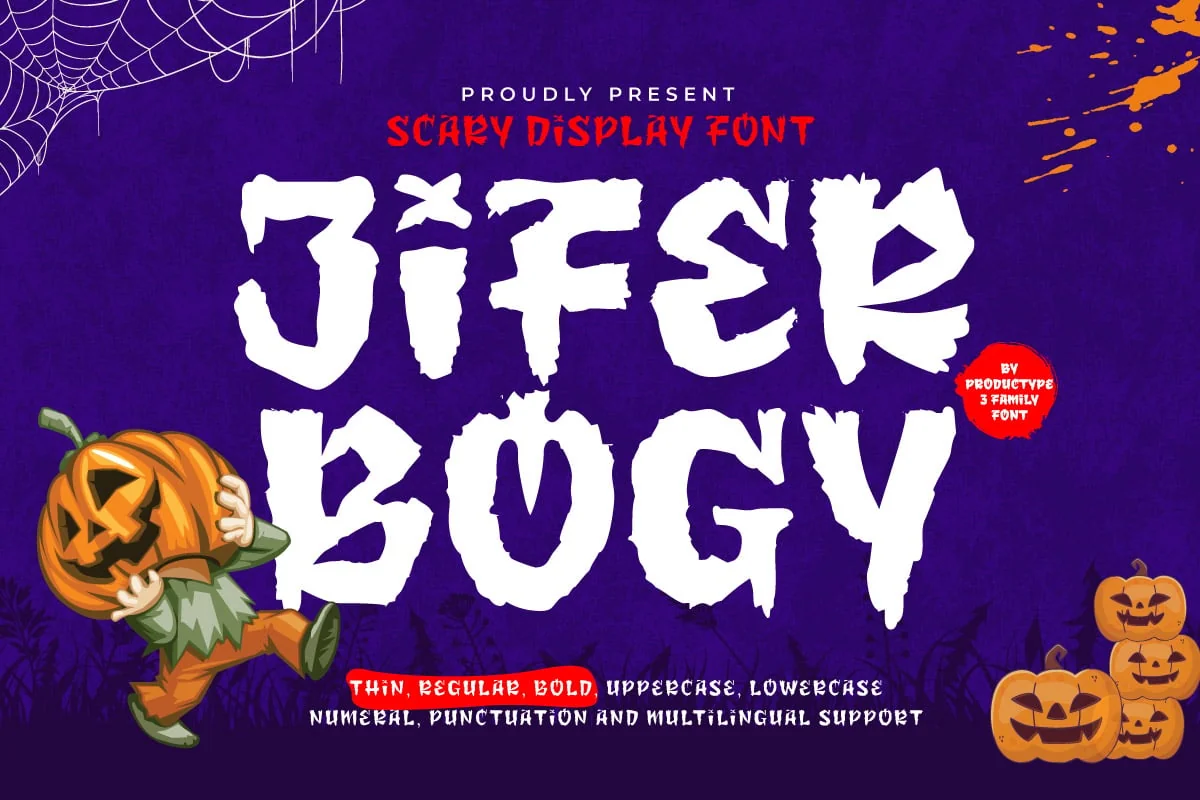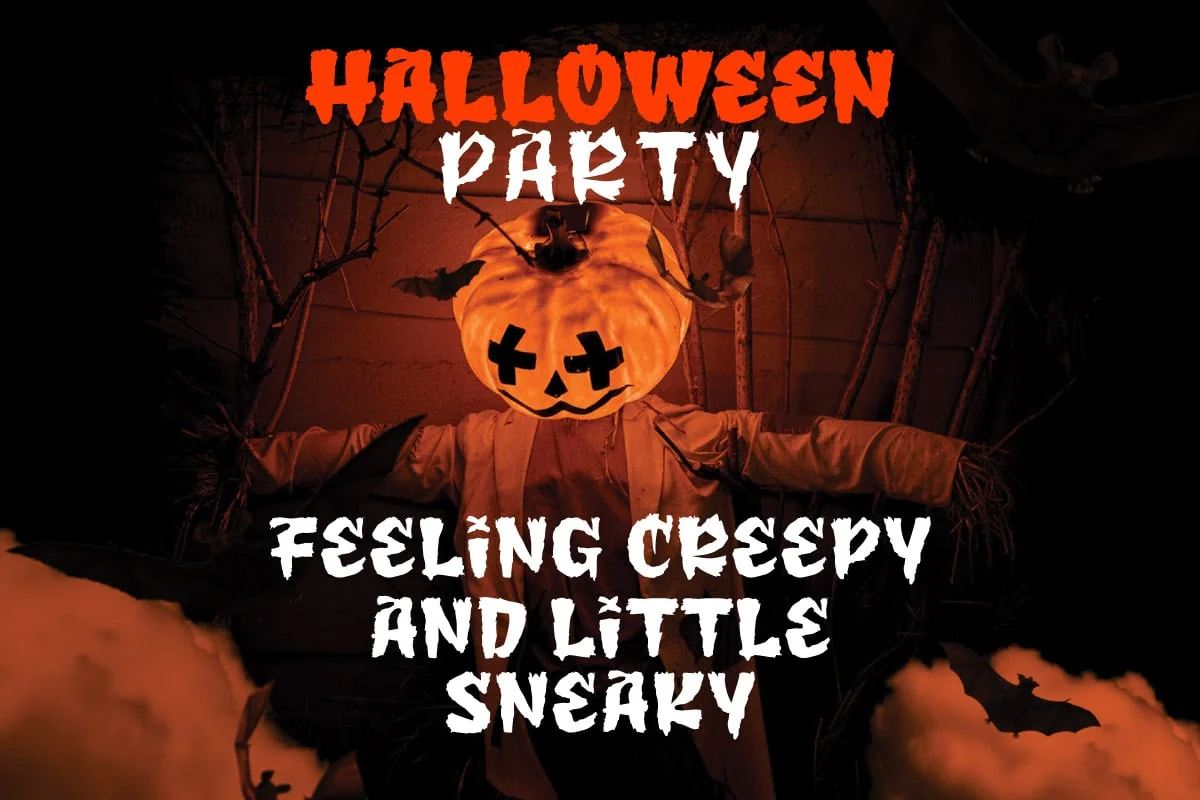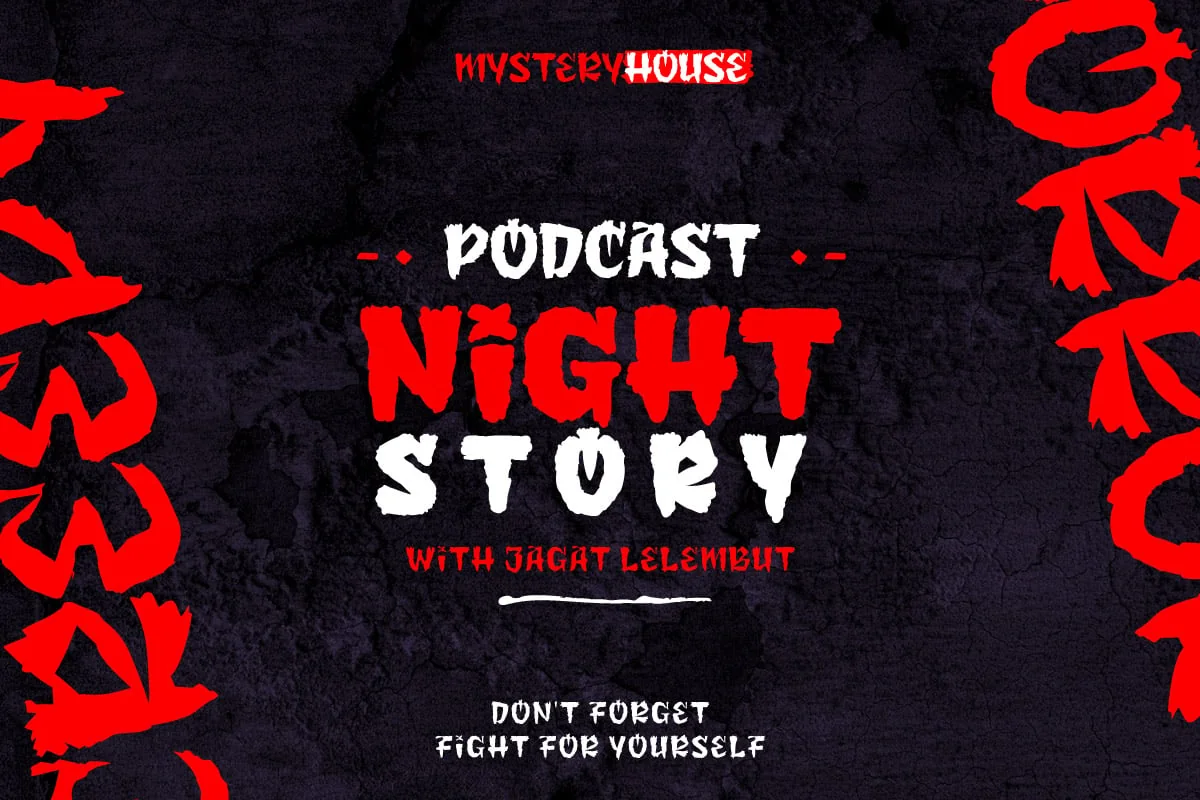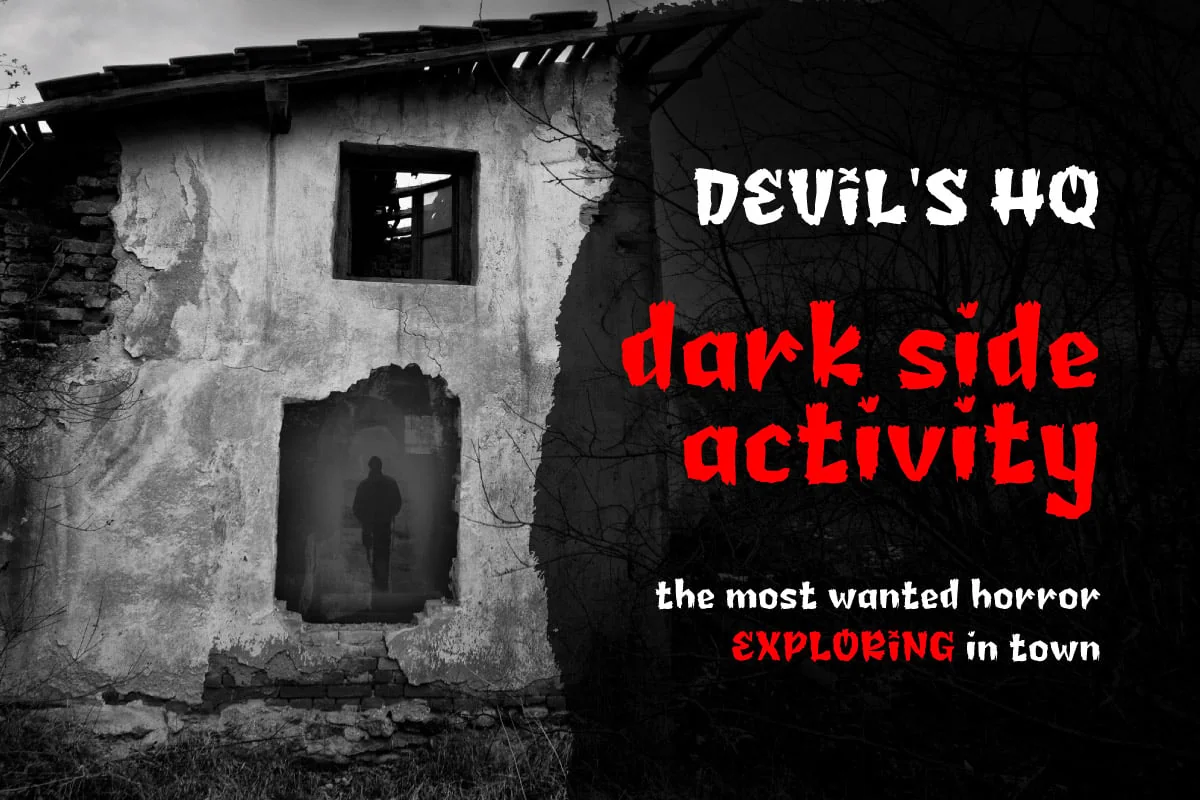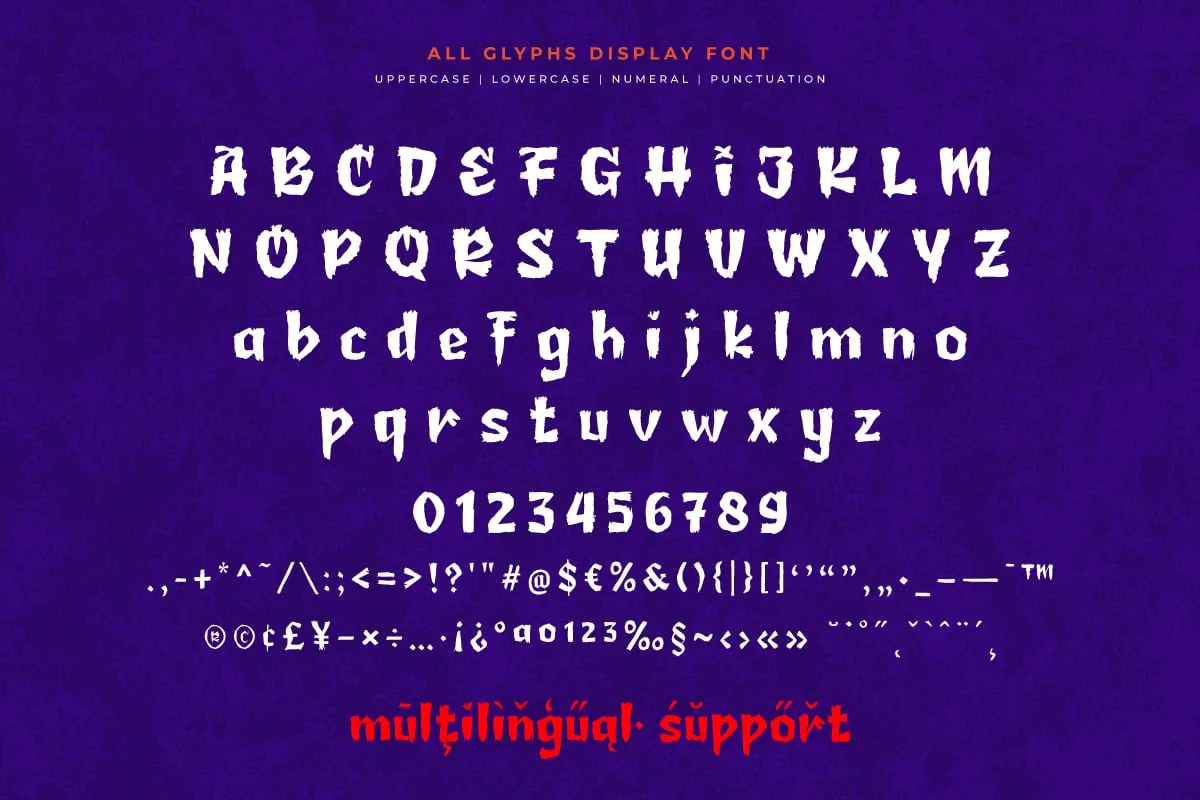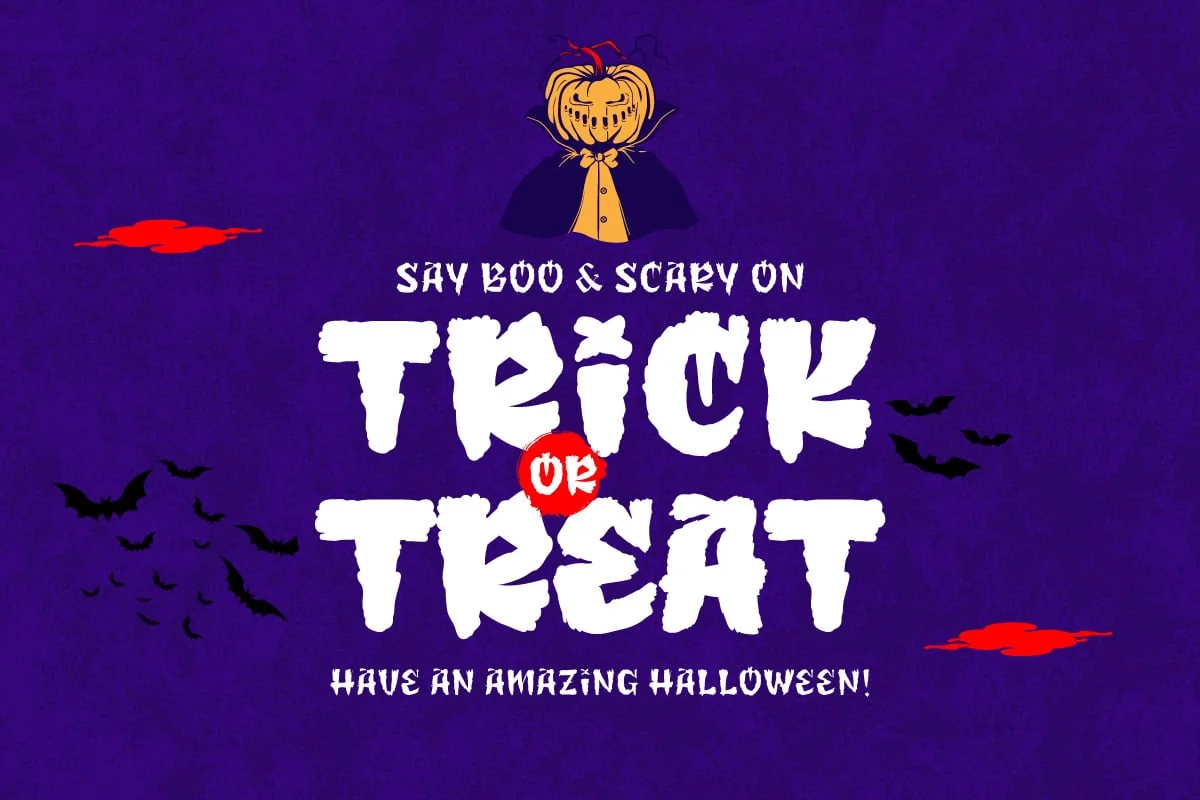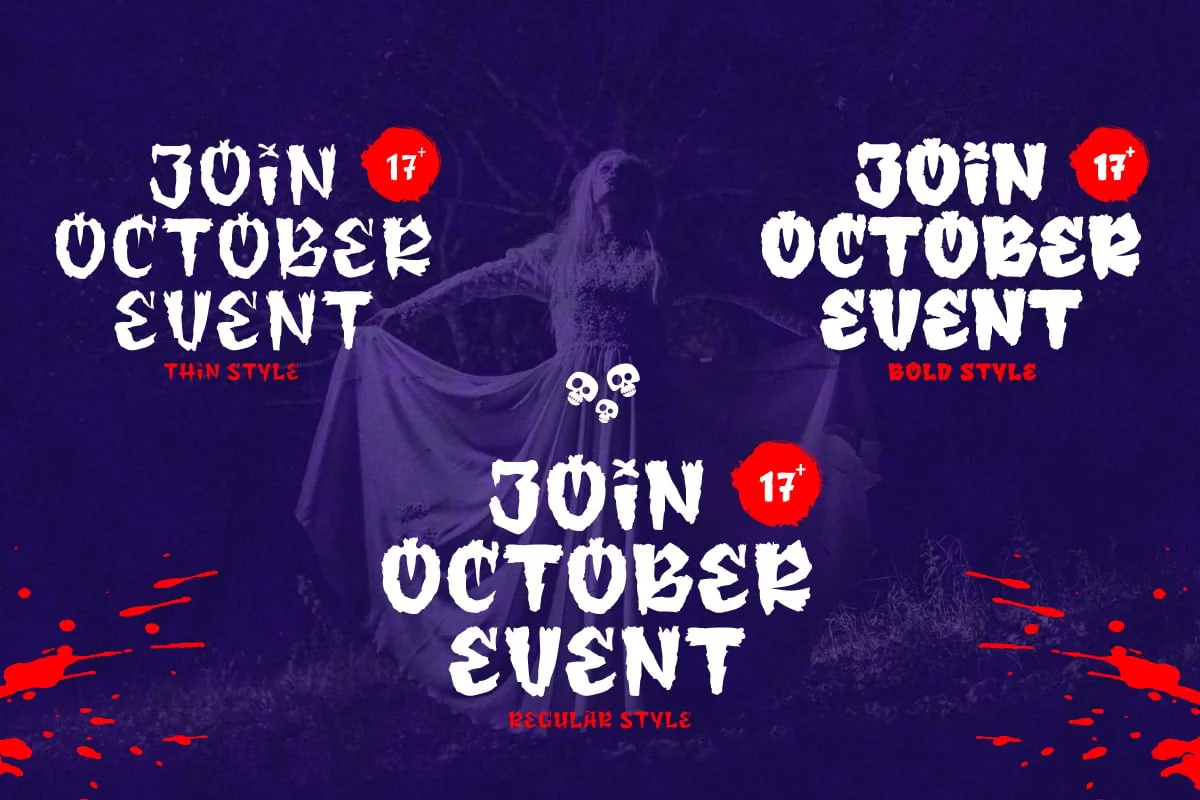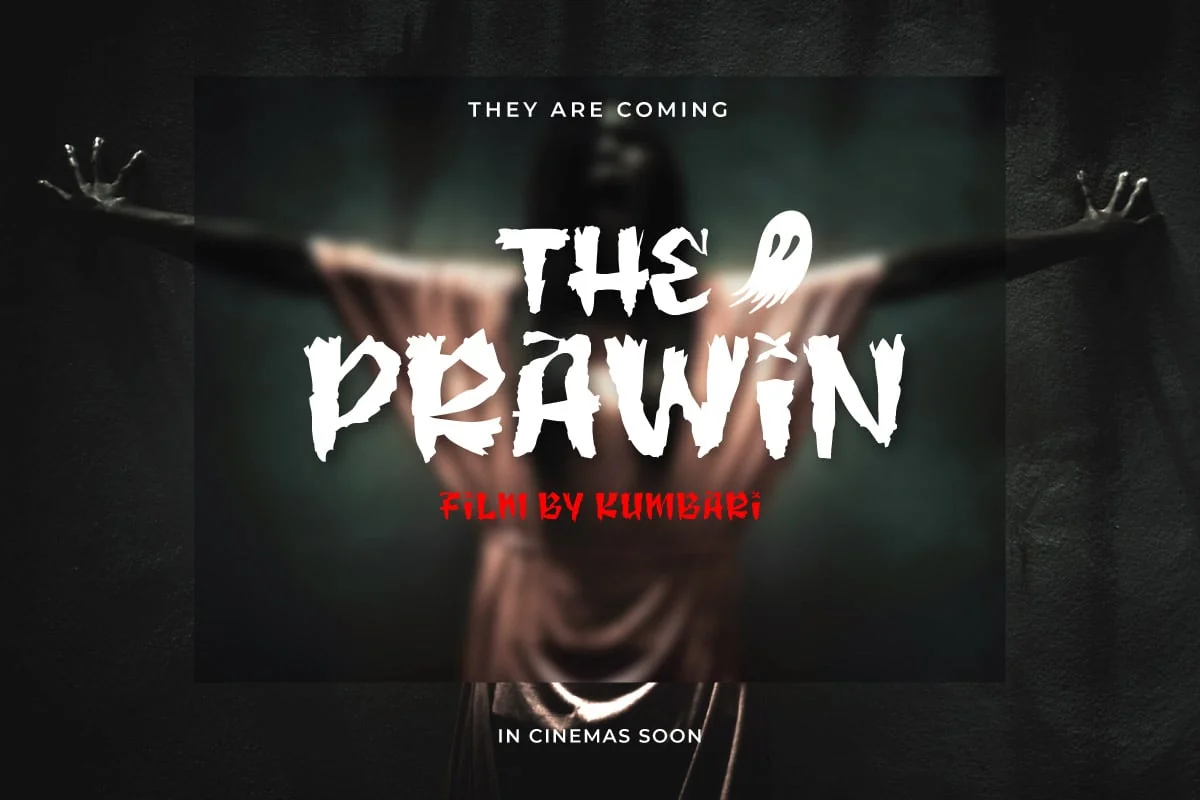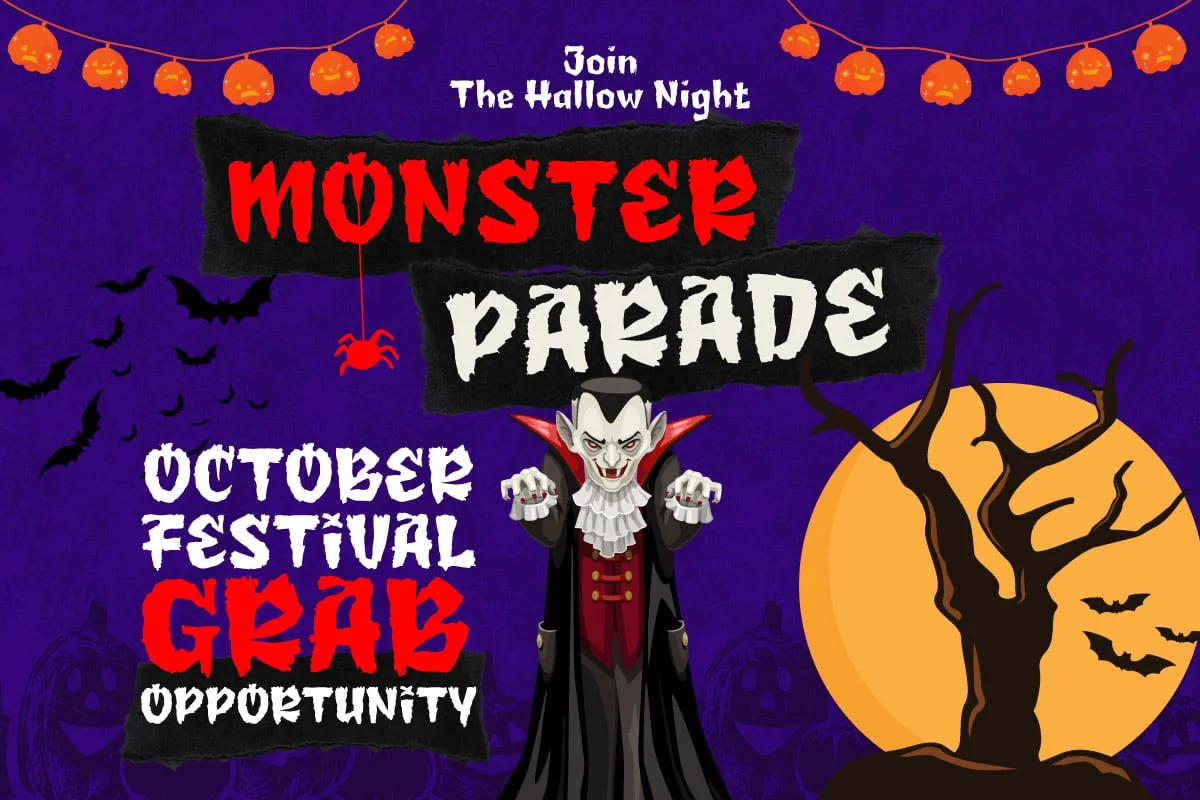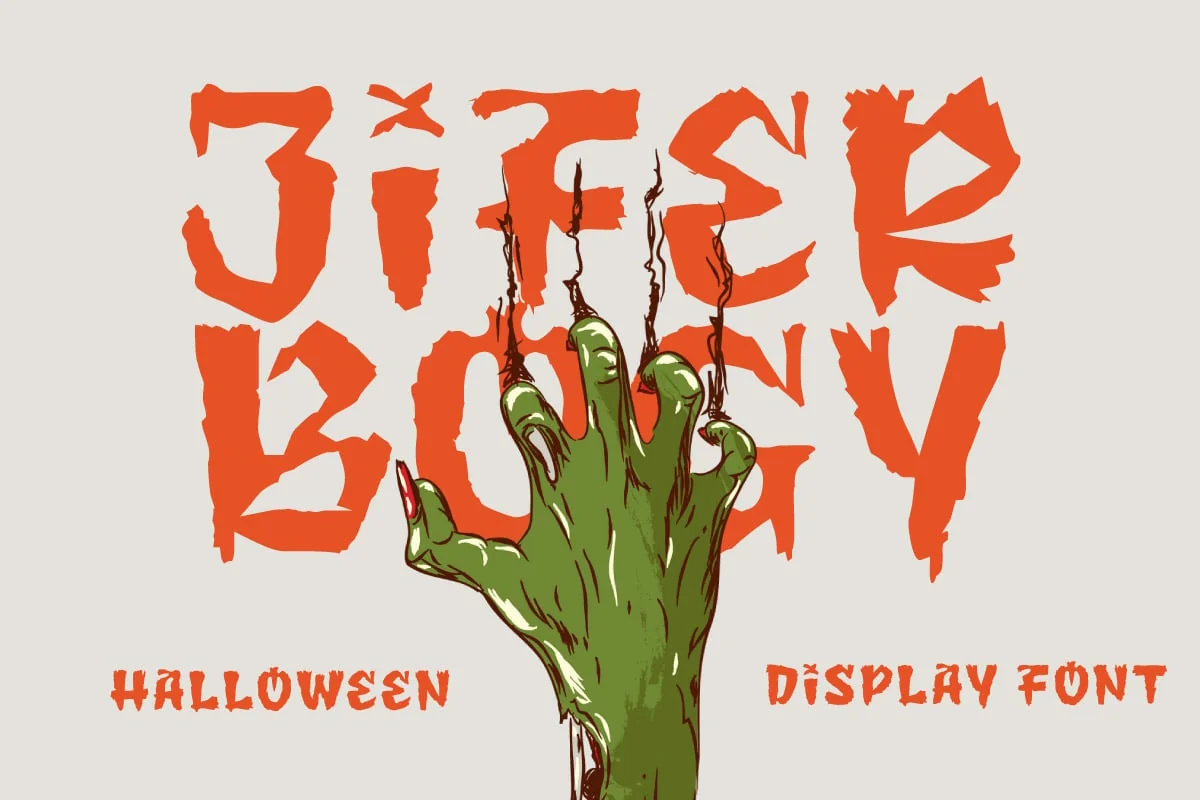
Jifer Bogy – Halloween Display Font
Jifer Bogy: Unleash Halloween Terror in Your Designs!
Introducing Jifer Bogy, the spine-chilling display font that will breathe eerie life into your Halloween projects. With its unique and haunting characters, Jifer Bogy is ready to inject a dose of horror into your designs instantly.
Key Features: • Custom-crafted display font for Halloween themes • Creepy letterforms with gothic and grunge touches • Perfect for headlines, posters, Halloween party invites, and horror-themed designs
Ideal Uses: ✓ Horror movie posters ✓ Halloween party invitations ✓ Spooky merchandise designs ✓ Halloween event logos ✓ Horror book or comic titles
Jifer Bogy is the go-to choice for designers looking to add a terrifyingly stylish edge to their Halloween projects. With its bold and striking characters, this font will make your designs stand out in the crowd of the ordinary.
Don’t just celebrate Halloween – haunt it with Jifer Bogy!